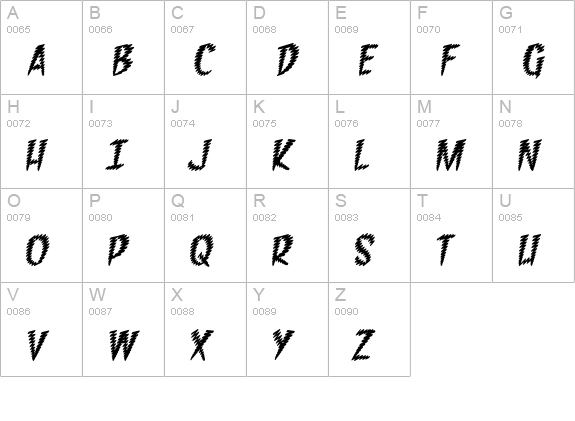
Feedback BB Italic Font Details
Feedback BB Italic is a distinctive, italic variant in the Feedback typeface family \xE2\x80\x94 well suited to design and typography projects.
Feedback BB Italic font is a modern and stylish typeface that exudes sophistication and elegance. Its sleek curves and slanted design give it a unique and contemporary look, making it perfect for a wide range of design projects. Whether you're working on a website, poster, or branding materials, Feedback BB Italic font is sure to make a statement. The best part? Feedback BB Italic font is available for free at FontsMarket.com. You can easily download this beautiful font and use it in your projects without any cost. Take advantage of this amazing offer and add a touch of class to your designs with Feedback BB Italic font today!